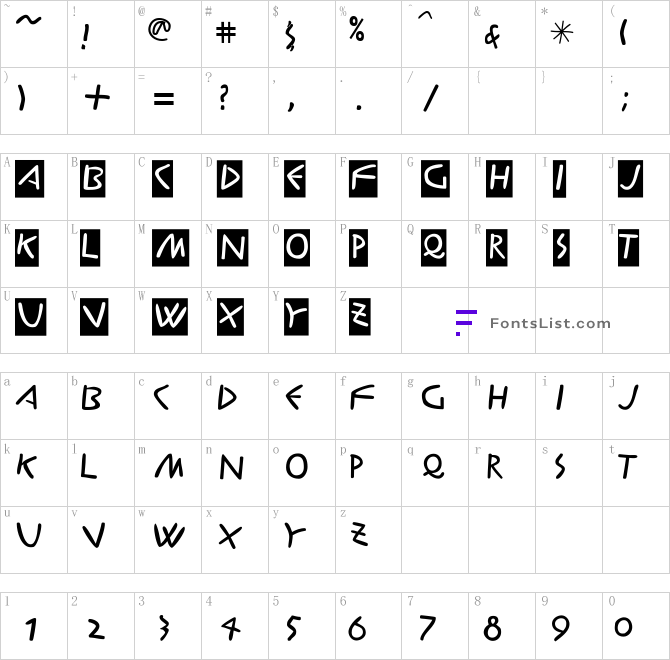
- Font Name:AIAlphaKid
AIAlphaKid-Plain.ttf is a very beautiful artistic font, AIAlphaKid-Plain.ttf is widely used in the design and printing of various books and pictures,AIAlphaKid-Plain.ttf has a strong visual impact,AIAlphaKid-Plain.ttf is a commonly used font in newspapers, magazines and books, and is used in posters, e-commerce Poster design, store design, logo design, font design and other fields.AIAlphaKid-Plain.